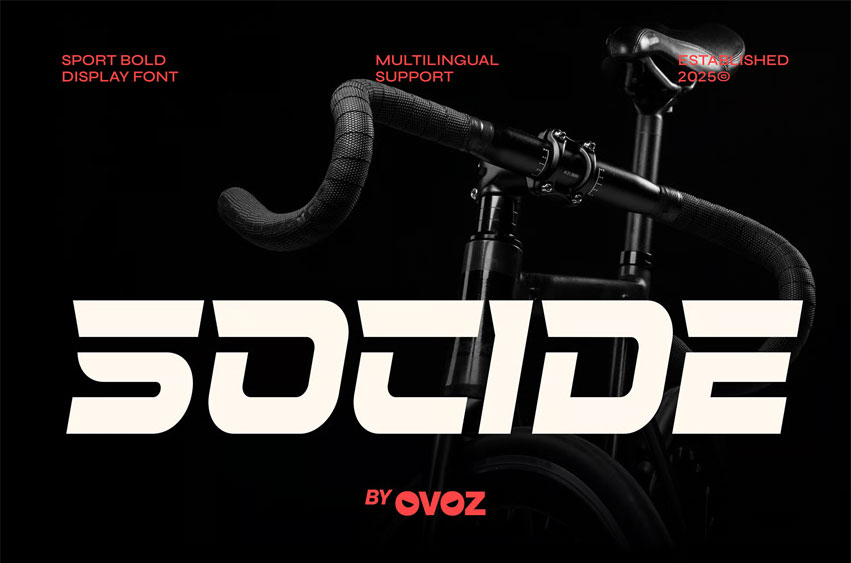
Socide Sports Font is a sport-bold display font built with streamlined angles and fast-moving strokes that embody speed, agility, and modern athletic precision. Its aerodynamic silhouette makes it ideal for high-impact sports visuals—from football and basketball graphics to baseball promotions, soccer branding, and dynamic racing posters. Designed to amplify momentum and performance, SOCIDE delivers a powerful presence for gym campaigns, fitness visuals, golf event materials, and bold sporty editorial layouts.
Engineered for high-action environments, SOCIDE excels in tournament graphics, biker-inspired visuals, hockey promotions, and striking fight-event designs. Its sharp geometry and forward-driven motion create a strong visual rhythm for race identities, athletic campaigns, and multi-sport marketing content. Whether you’re building team branding, performance visuals, or training-focused promotions, SOCIDE ensures your message stands out with clarity, confidence, and unstoppable athletic energy.
Bold Moves, Strong Letters — where dynamic sport energy meets modern precision to create a fearless competitive identity.